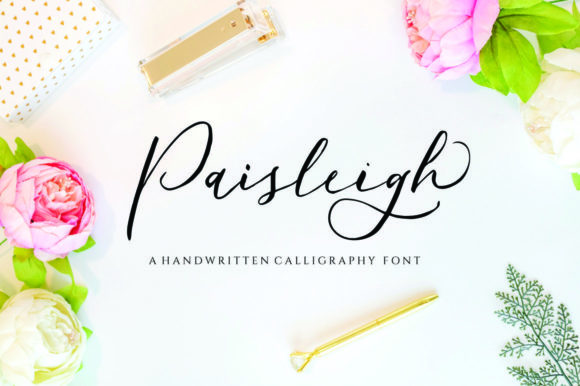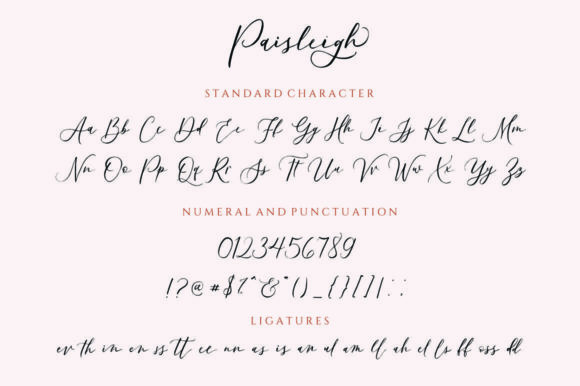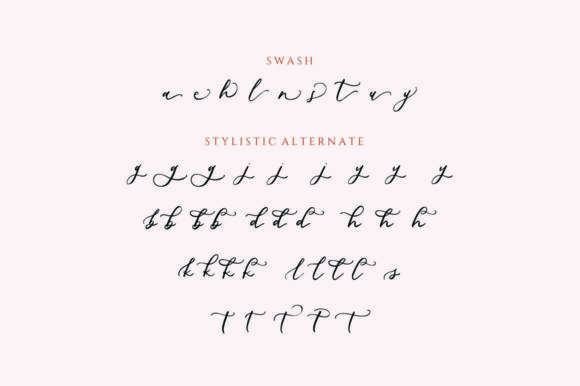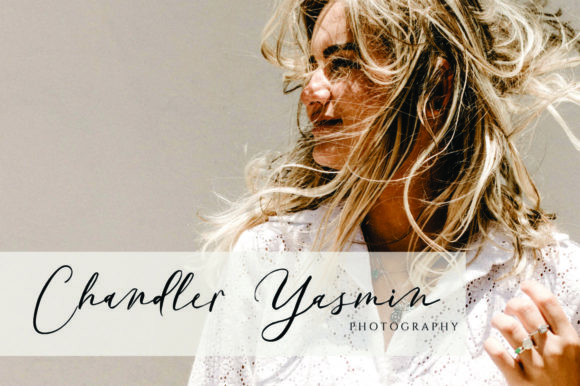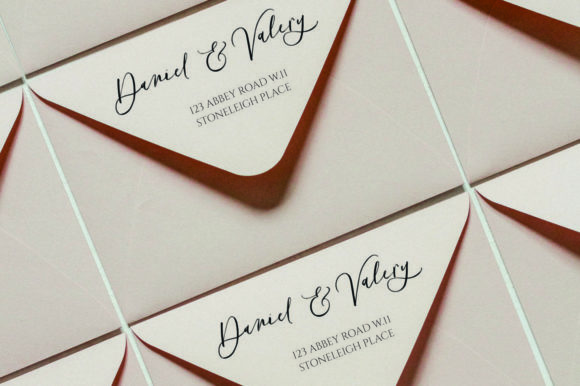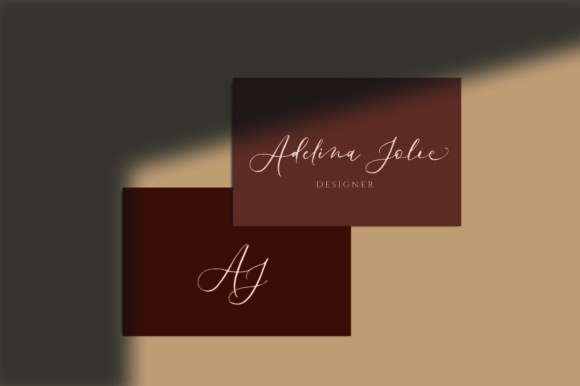
About Paisleigh Font
Paisleigh is a delicate and enchanting script font that will capture your heart with its ravishing style. With its graceful and intricate letterforms, Paisleigh is the perfect choice for creating stunning and beautiful designs. Whether you’re working on invitations, branding materials, packaging, or any other creative project, Paisleigh will add a touch of elegance and sophistication. What’s more, this font is PUA encoded, allowing you to easily access all the glyphs and swashes it offers, providing you with seamless customization options. Embrace Paisleigh and let its exquisite beauty inspire you as you create gorgeous and visually captivating designs.